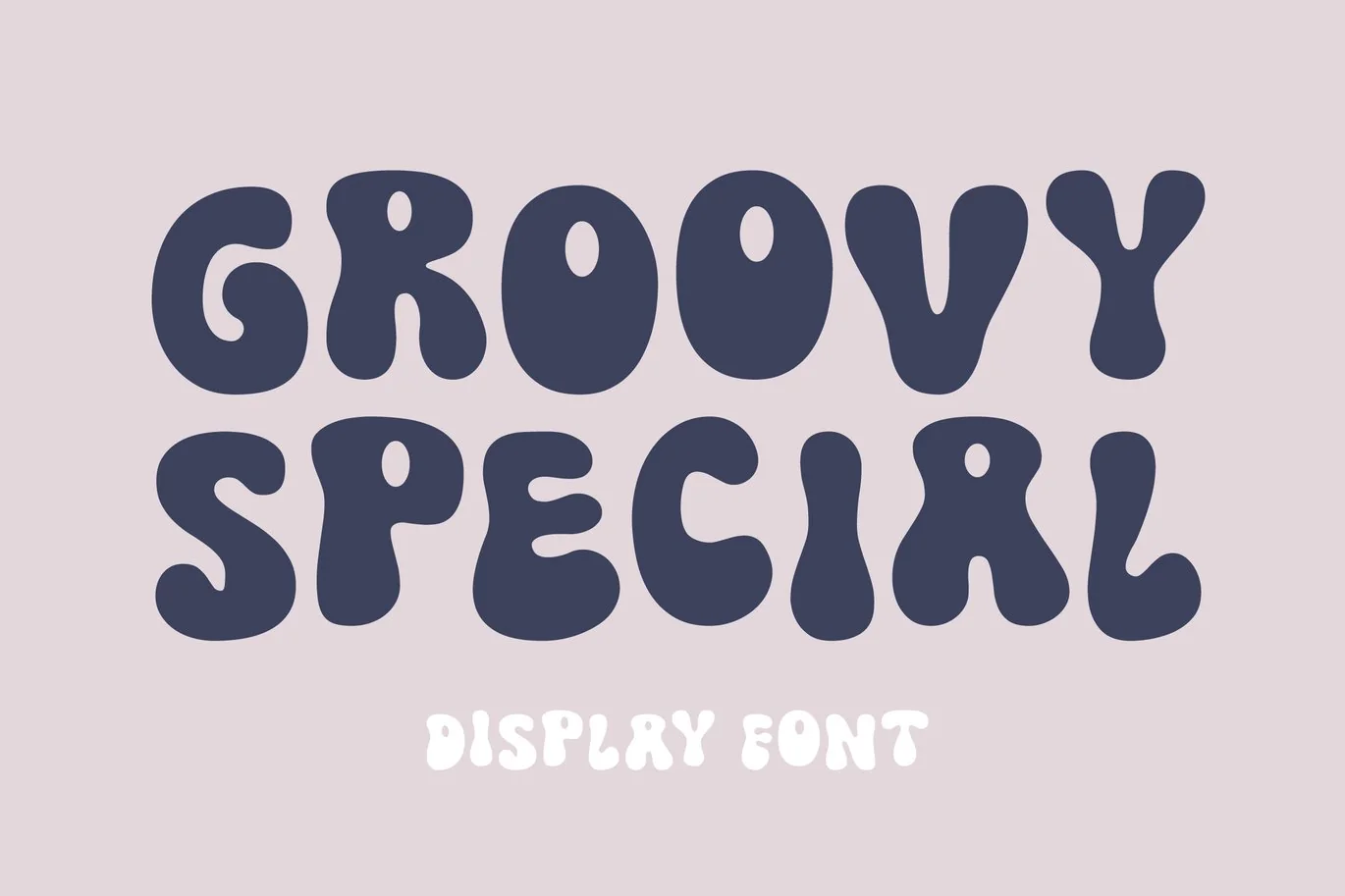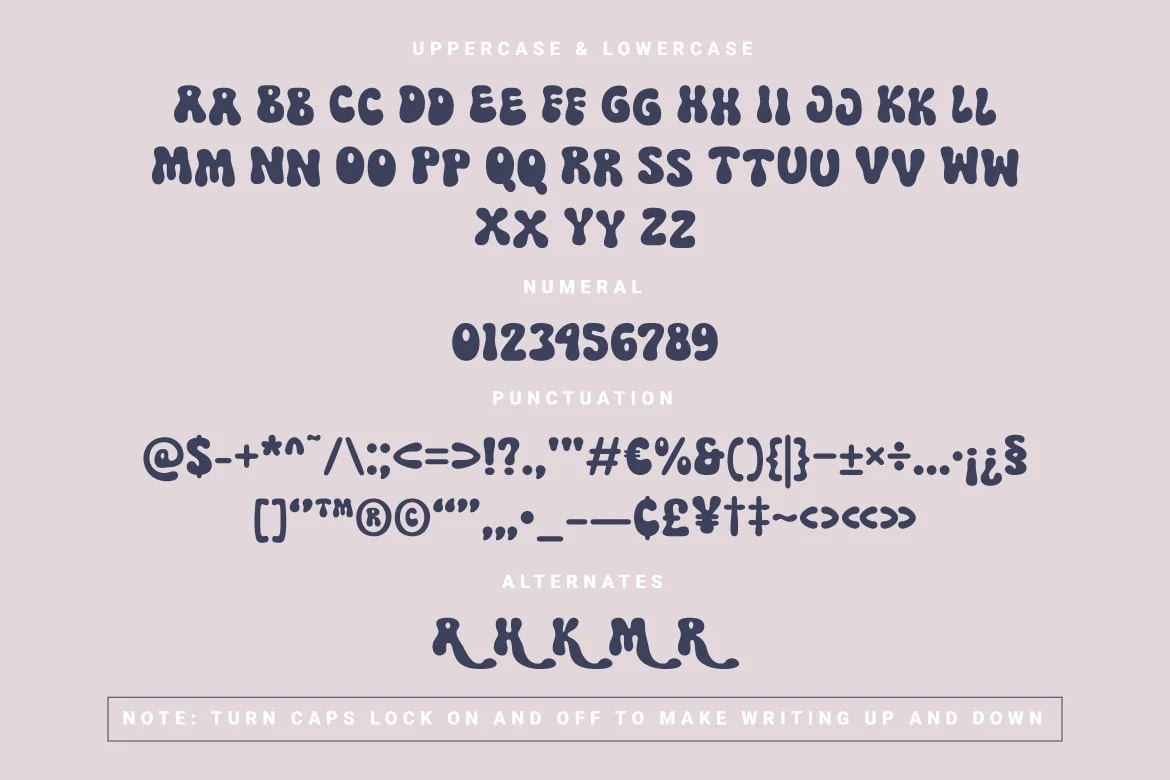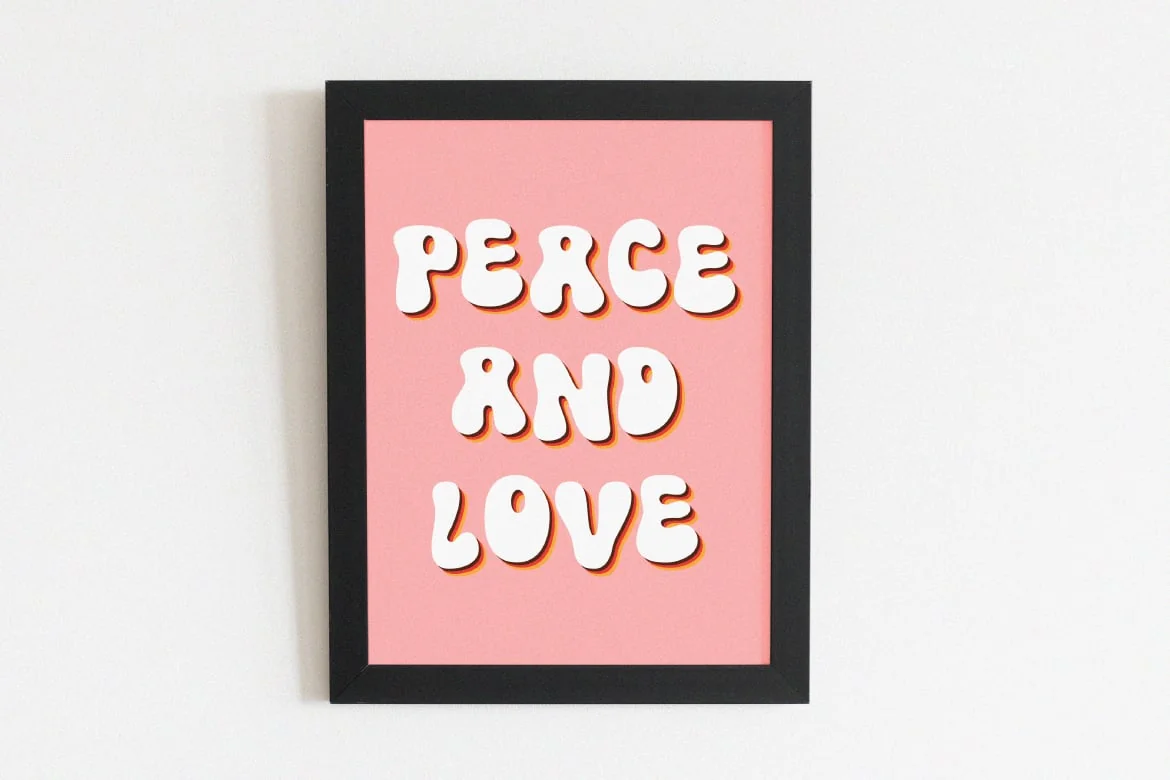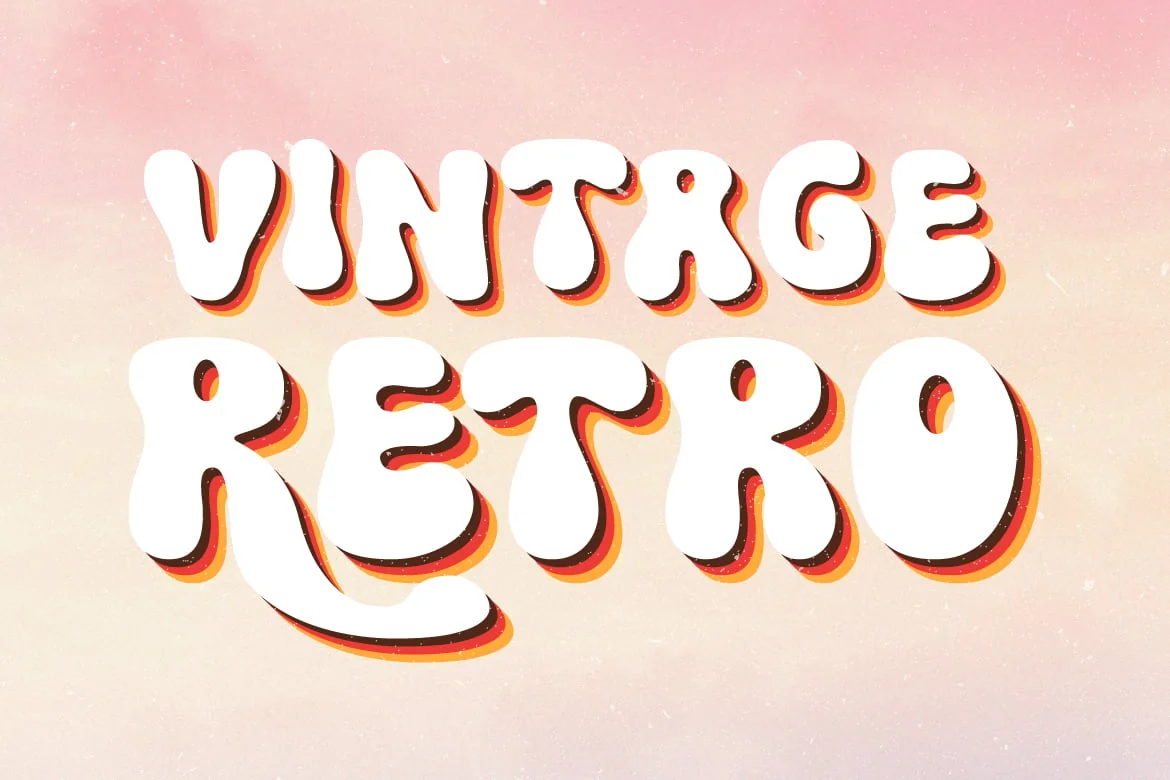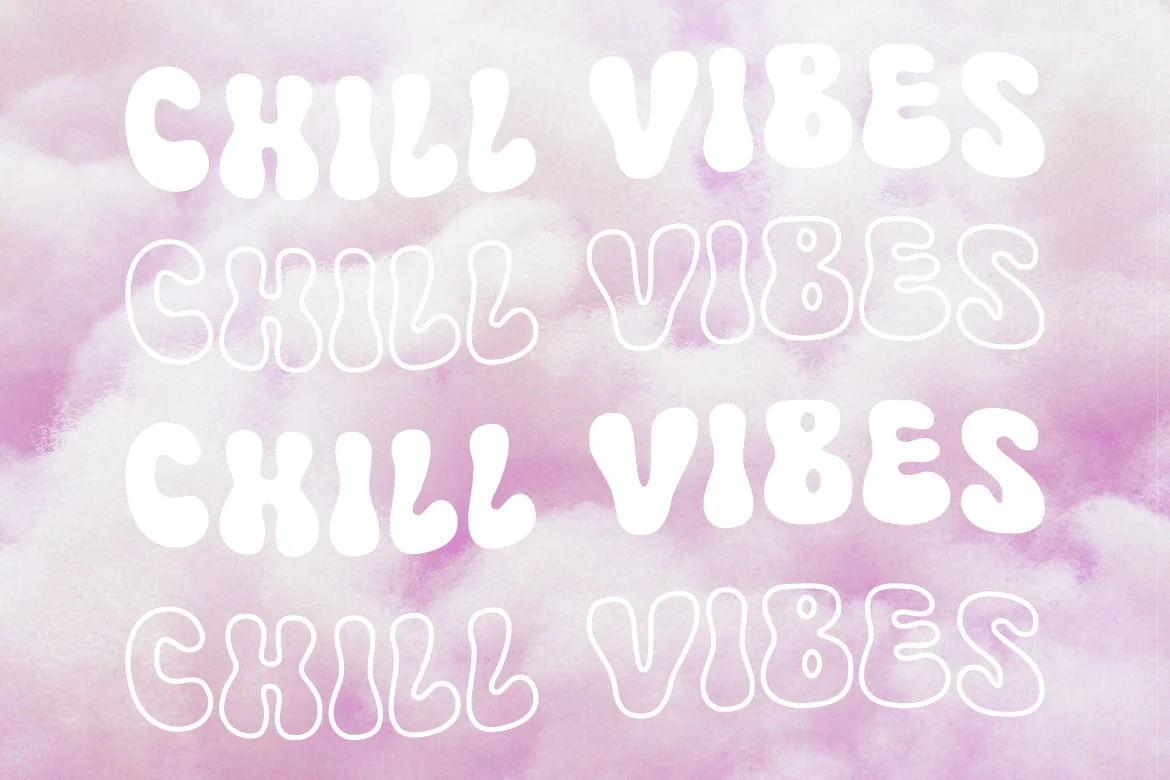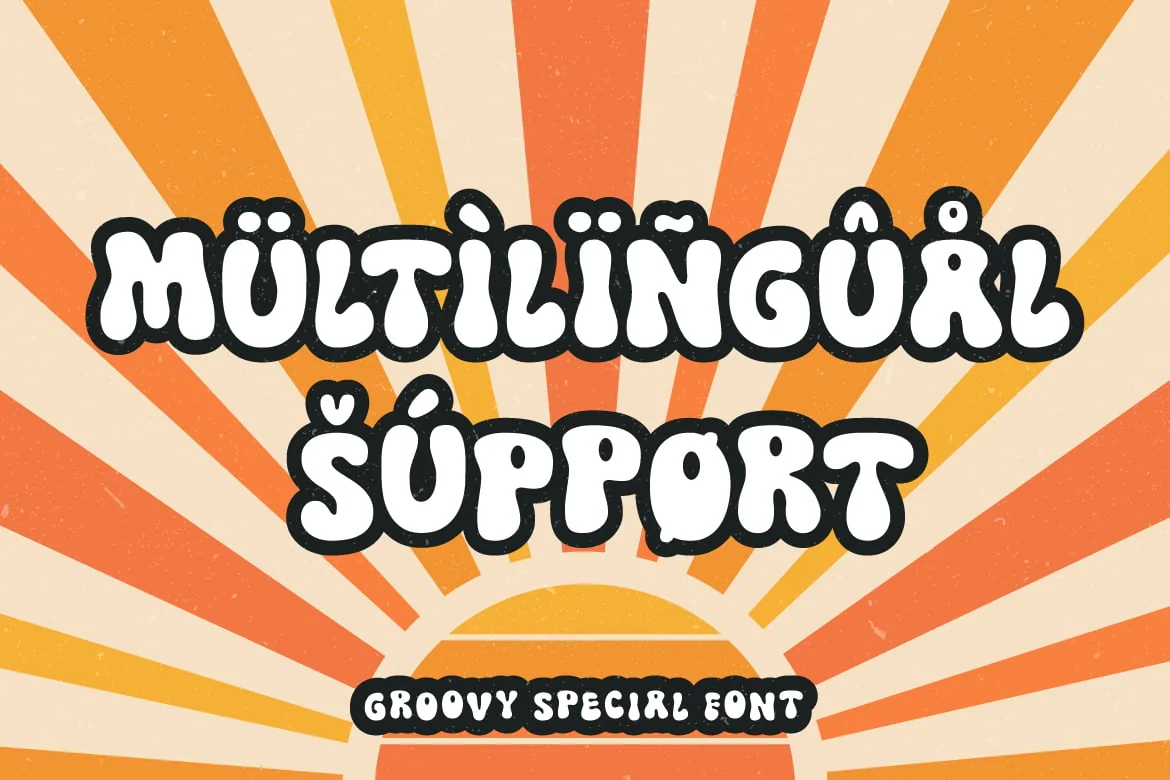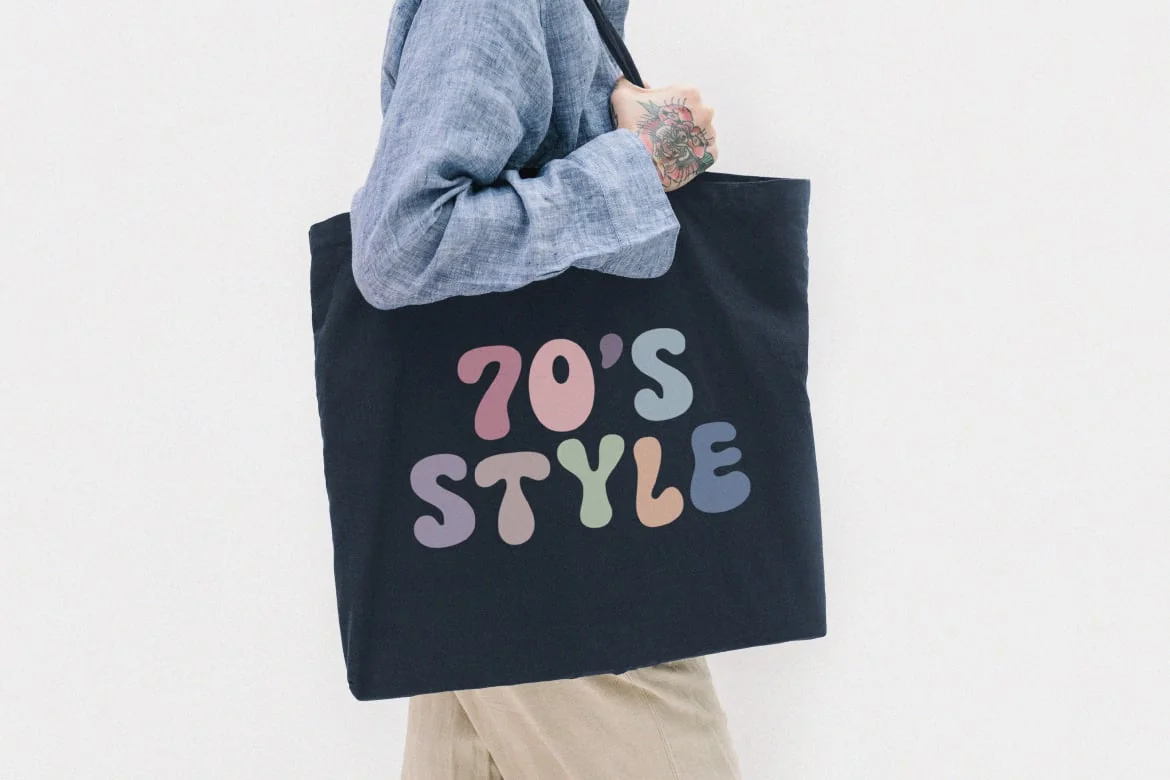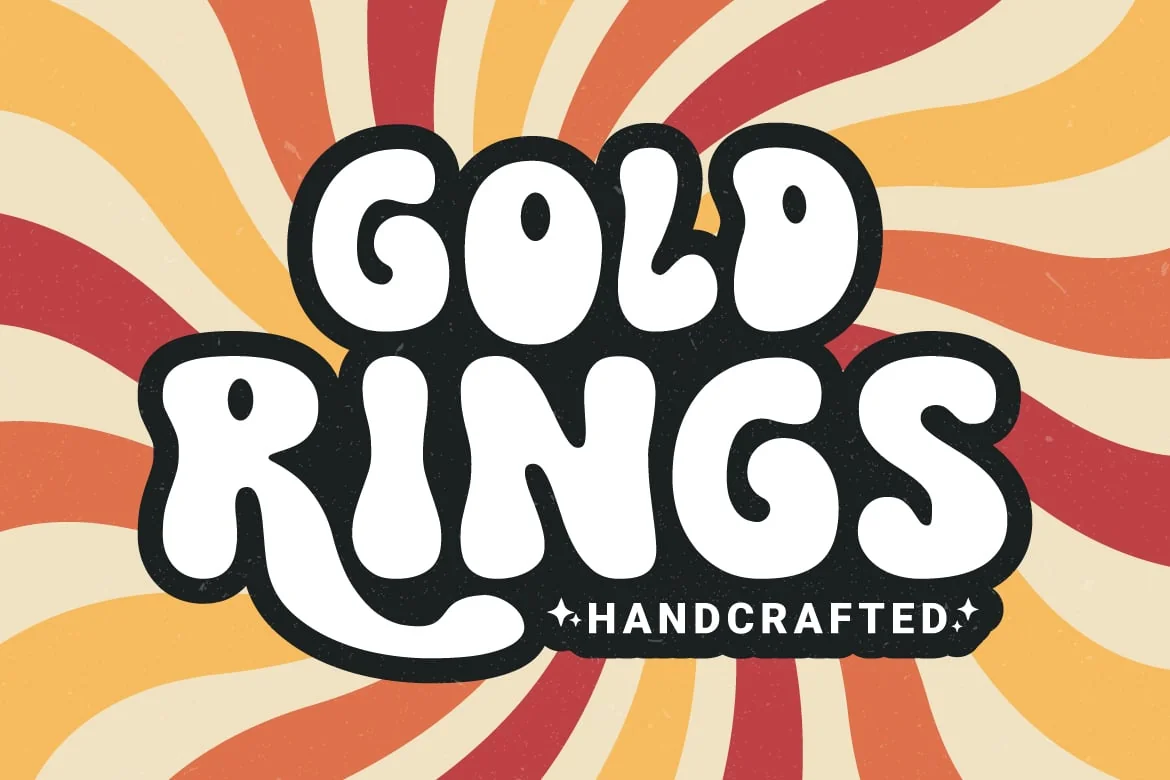
Groovy Special – Display Font
Groovy Special – Display Font By Wisnoetype Co
Say hello to the “Groovy Special” font. Cute and retro styled display font. This font also has alternative options for the letters a, h, k, m and r. It is suitable for those of you who have or want to design posters, social media posts or merchandise.